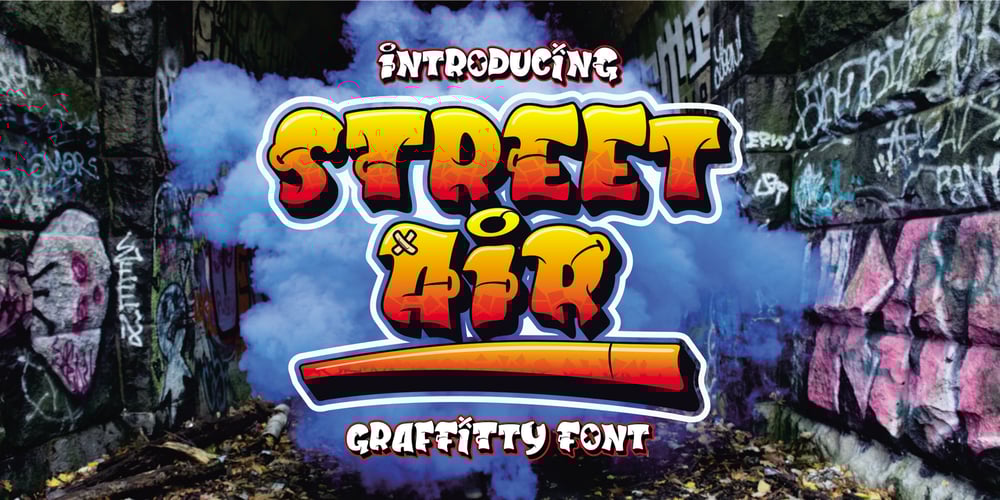
Street Air Font Family was designed by Sipanji and published by Sipanji21. Street Air contains 3 styles and family package options. Street Air is a unique display font with a graffiti-like appearance, with three style font, Regular, outline, and Shadow style. Use this font for any crafting project, apparel design, logotype, advertising, wall decoration, and pretty much anything that requires a personalized look. Take your designs to the next level with this stunning font!